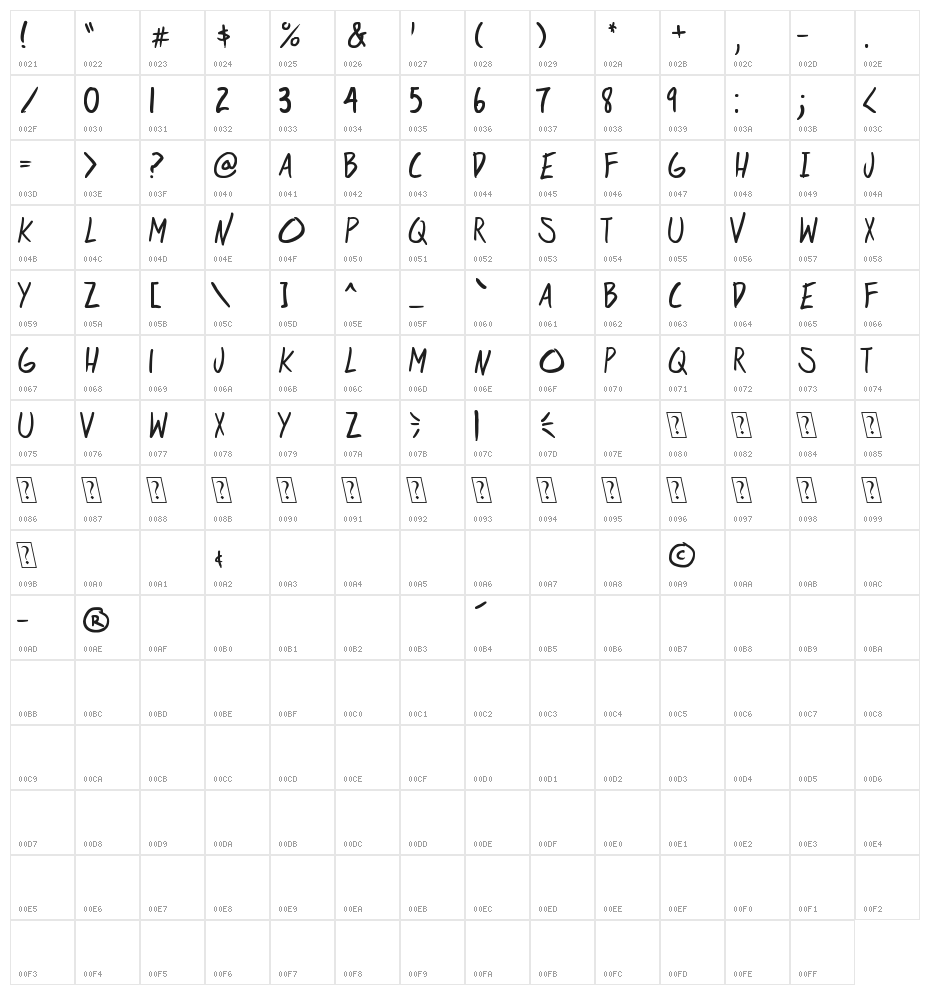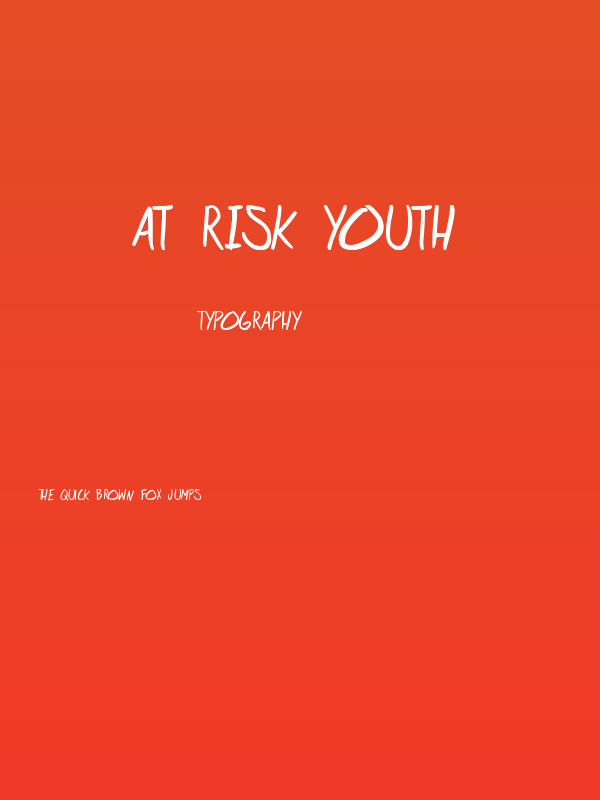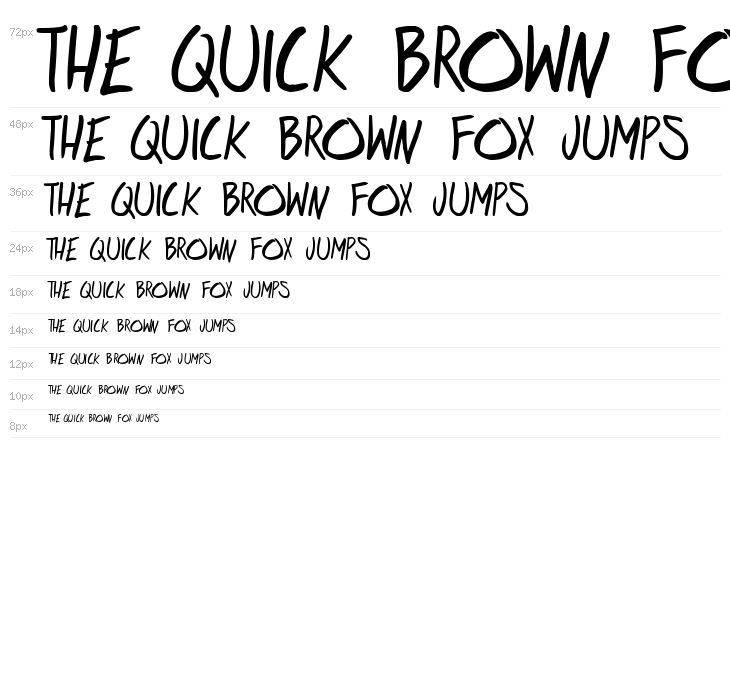
at risk youth Font
at risk youth Description
This font features a playful and casual handwritten style, characterized by its uneven strokes and informal appearance. The letters are slightly slanted, giving a dynamic and energetic feel. The uppercase and lowercase letters maintain a consistent style, with rounded edges and varying stroke widths that add to the font's charm. The numerals and special characters are crafted with the same lively touch, making them blend seamlessly with the alphabet. This font's organic and spontaneous look makes it ideal for projects that require a personal and approachable tone.
| Proposed Projects | Great for greeting cards, children's books, casual branding, and social media graphics. |